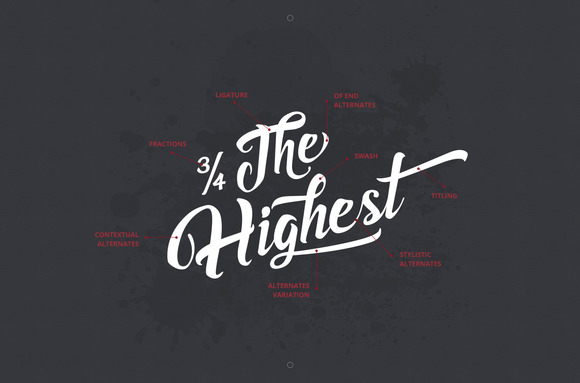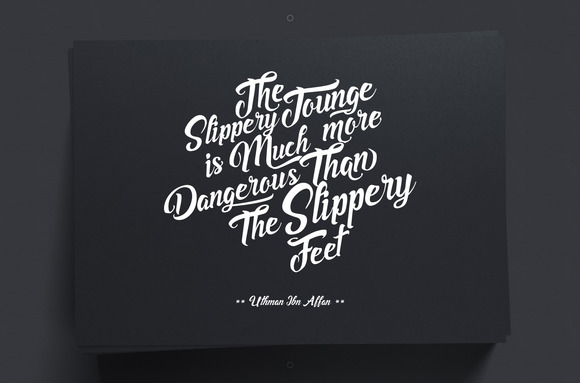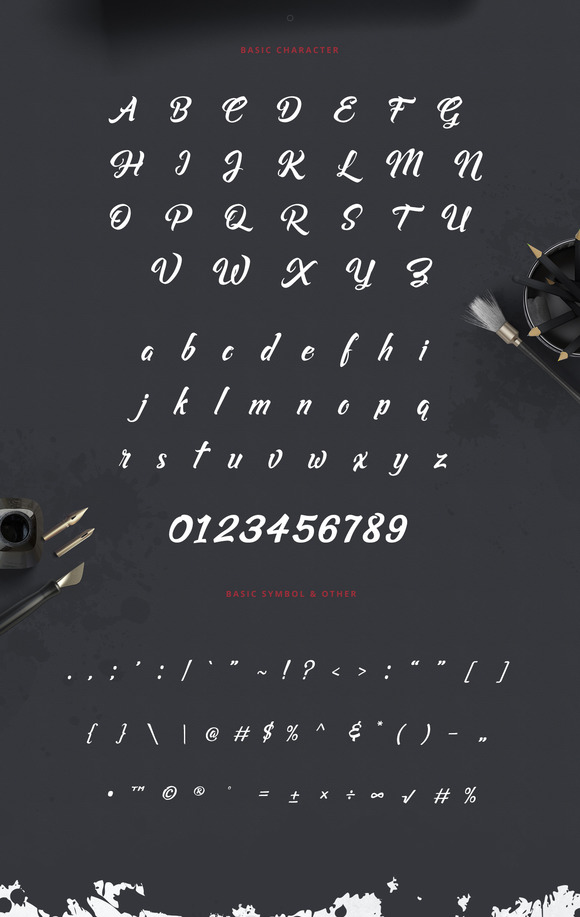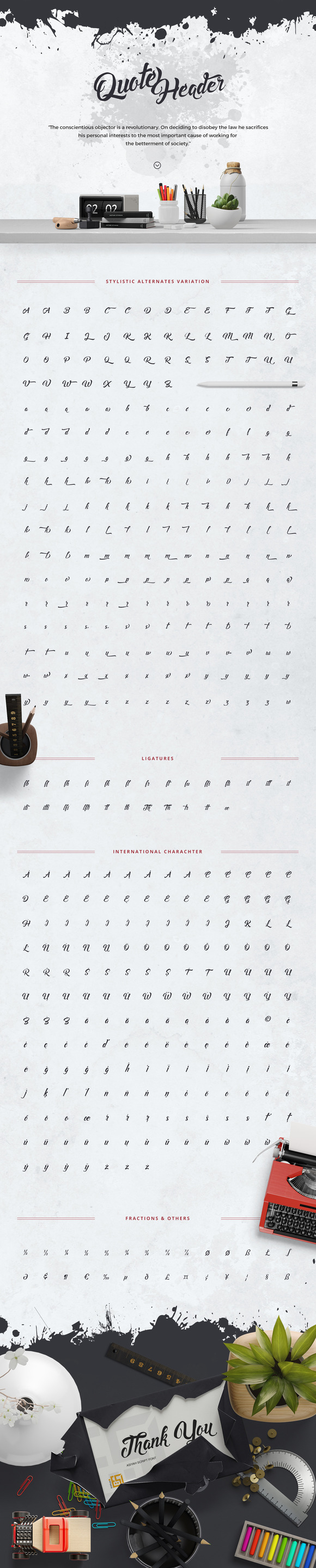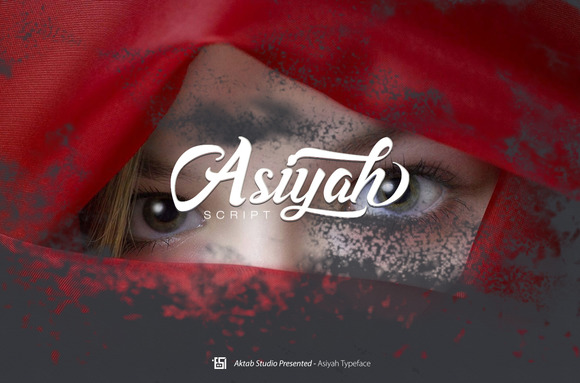
Asiyah Script Font
Hooraaayyy! Asiyah Script is launching!… I would be very happy if you’ll like it 😉 Asiyah is a handwritten font with a unique character. Full of open type features, is best used in an open type aware software. Most diacritics are included and the font can be used with most of the European languages.